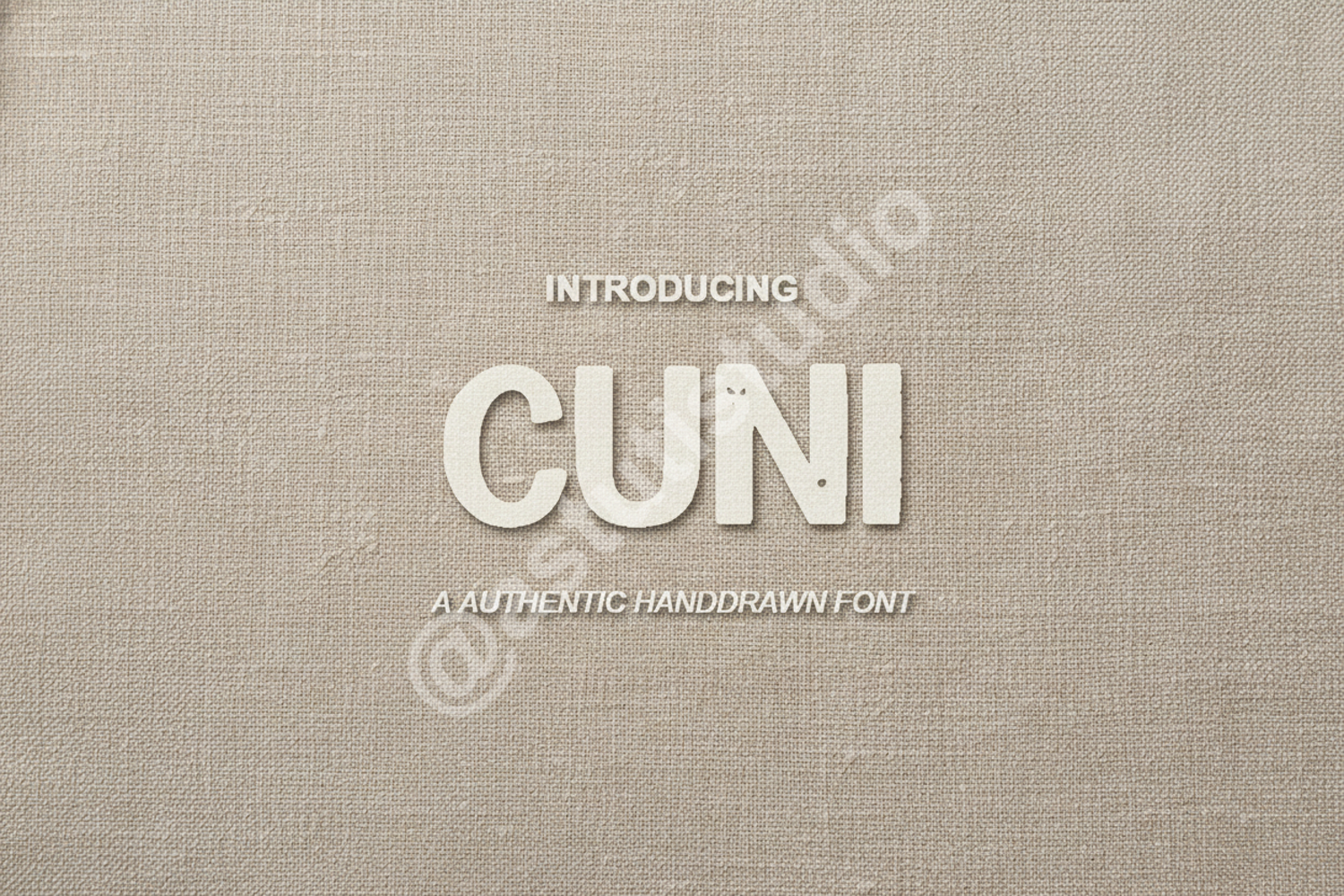
Cuni | Modern & Elegant Minimalist Sans Serif
Cuni
Cuni is a premium sans serif typeface that embodies modern sophistication and timeless elegance. Carefully crafted with clean lines and balanced proportions, Cuni offers a versatile solution for designers seeking a minimalist aesthetic without compromising on personality. Whether you are building a high-end brand or designing a sleek editorial layout, Cuni provides the professional edge your project deserves.
- Luxury Branding and Identity
- Editorial Design and Magazine Layouts
- Modern Logo Development
- High-End Packaging
- Clean Web Design and User Interfaces
- Minimalist Social Media Graphics